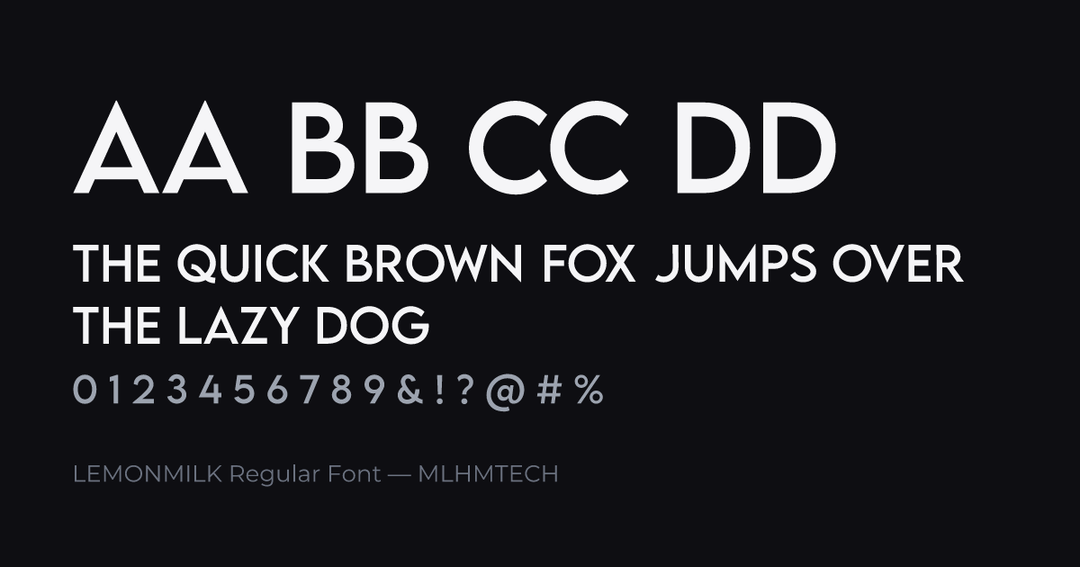
LEMONMILK Regular Font
LEMONMILK Regular is a bold, geometric sans-serif font ideal for eye-catching titles, logos, and video graphics. Its clean lines and strong presence make it a versatile choice for creative projects.
LEMONMILK Regular is a popular geometric sans-serif typeface known for its modern, clean look. The font features uniform strokes and a futuristic feel, making it perfect for headlines, logos, and branding. Its high legibility ensures readability even at small sizes, while its bold character adds impact to any design.